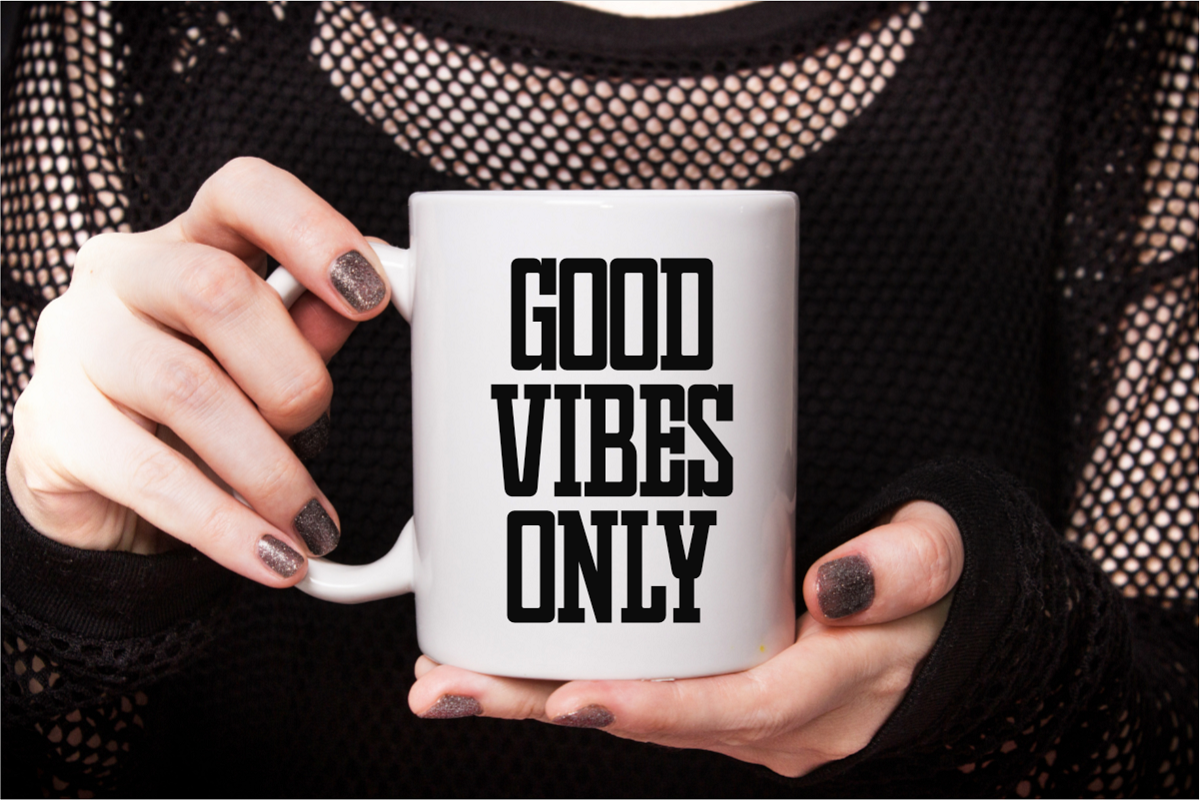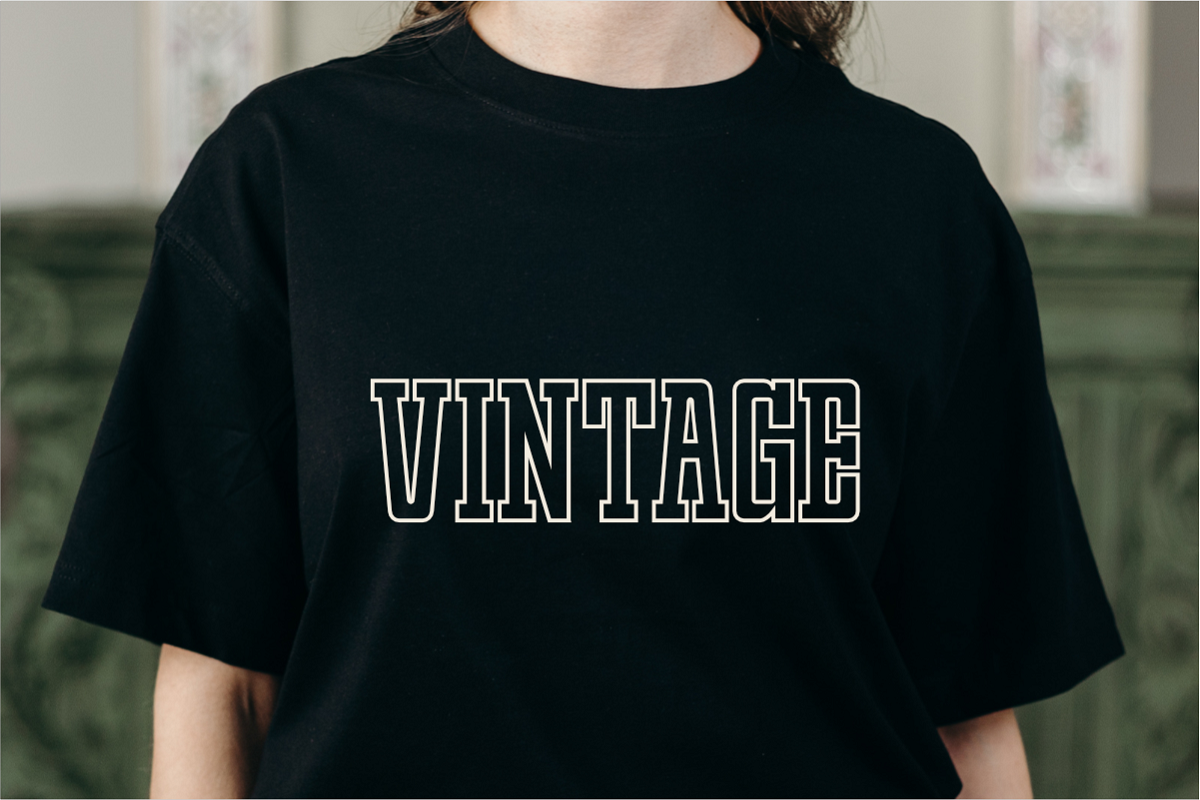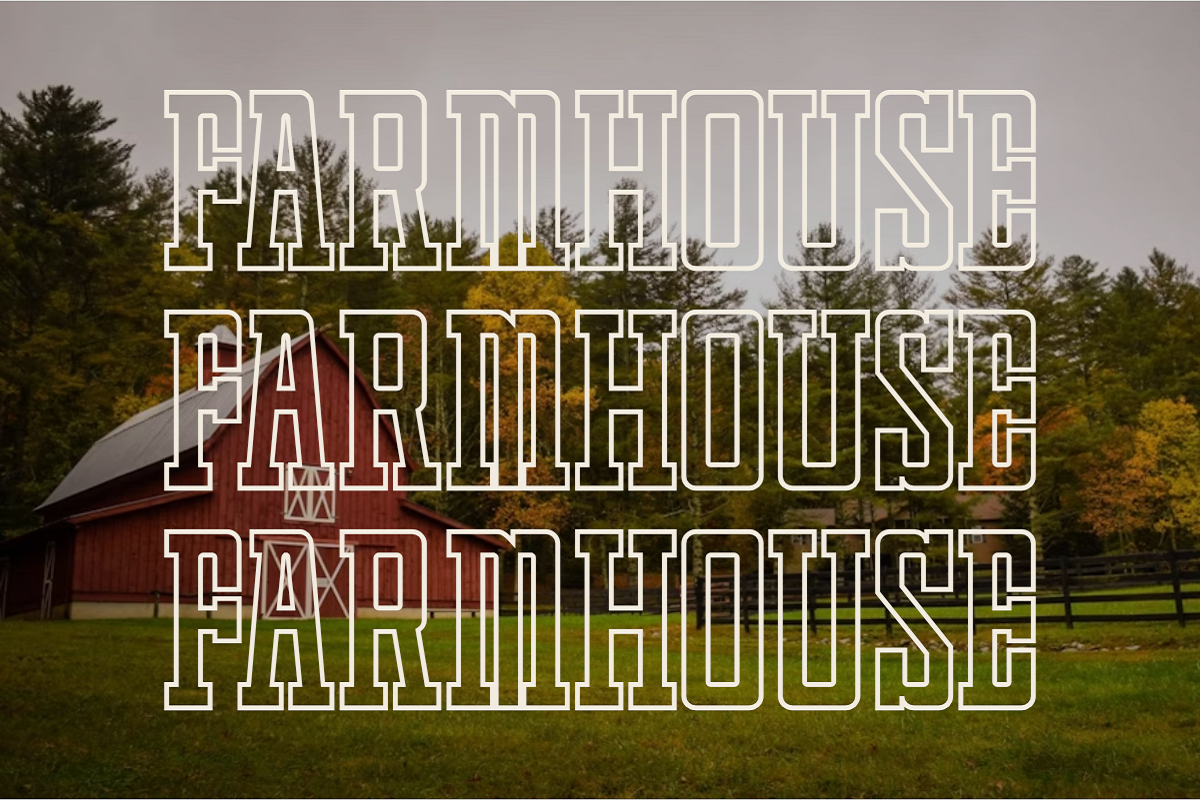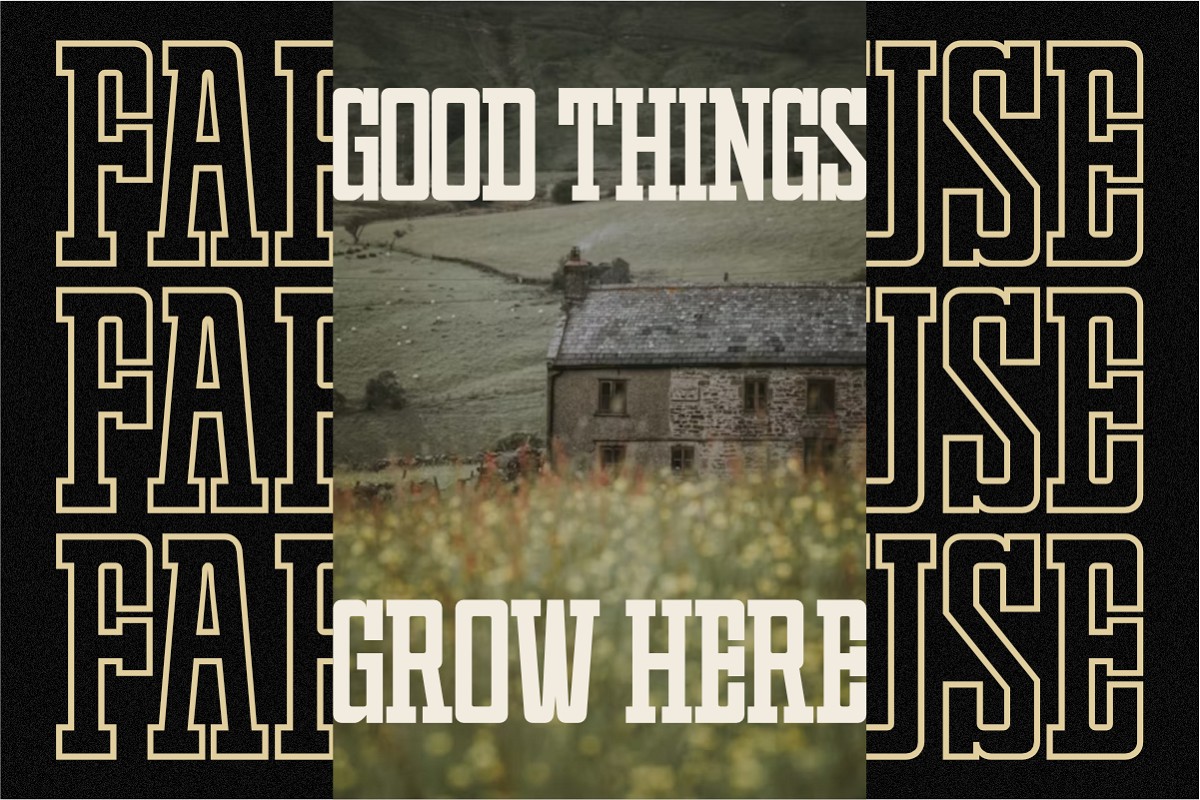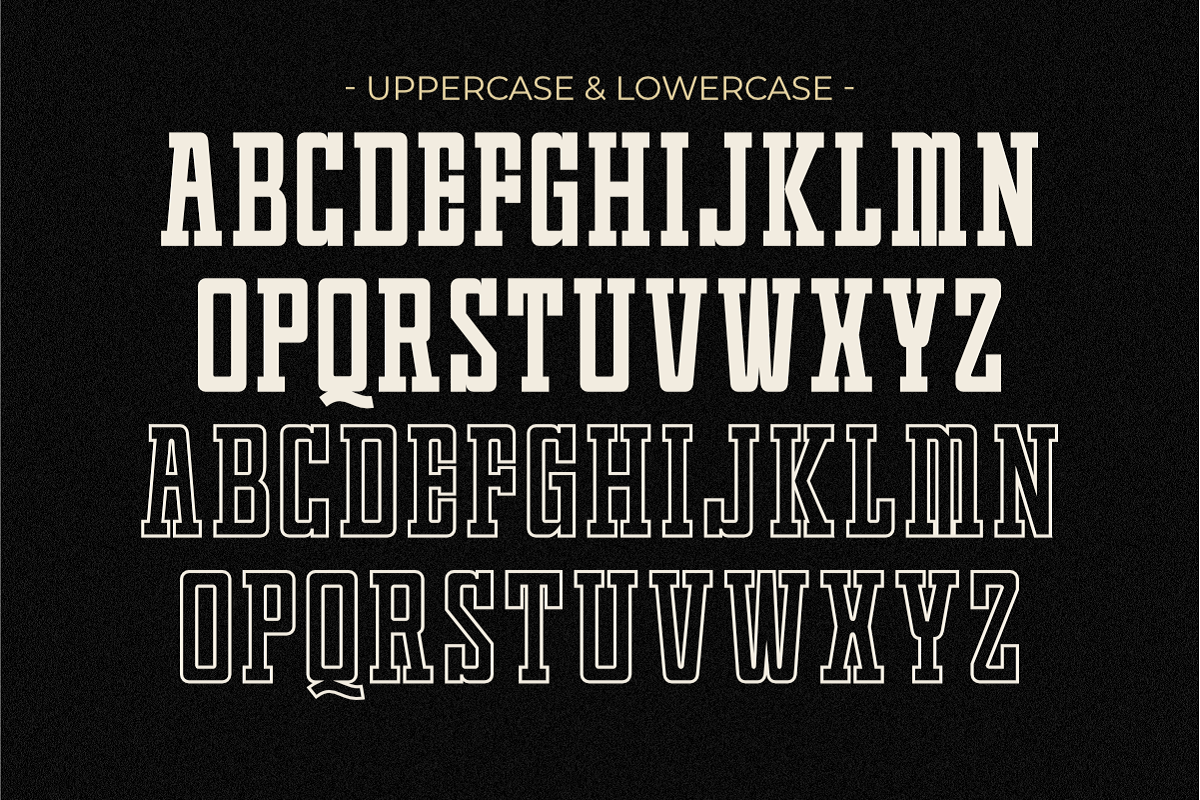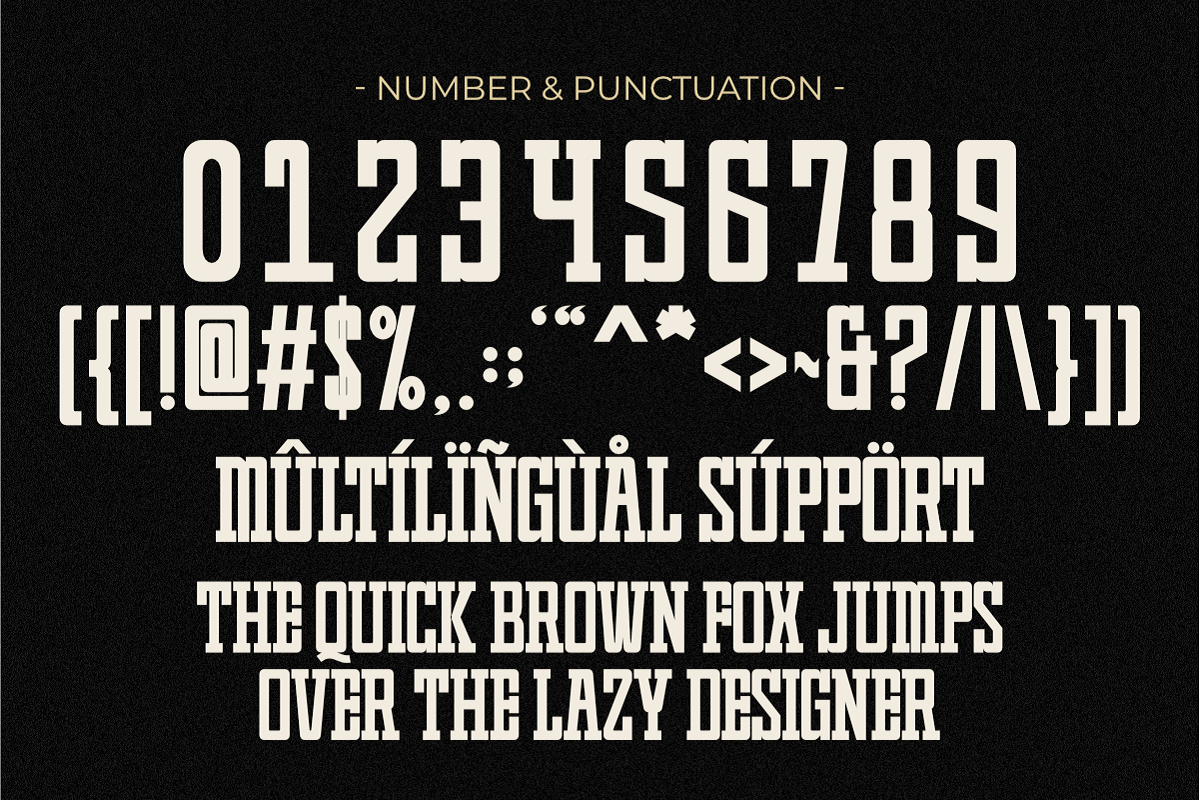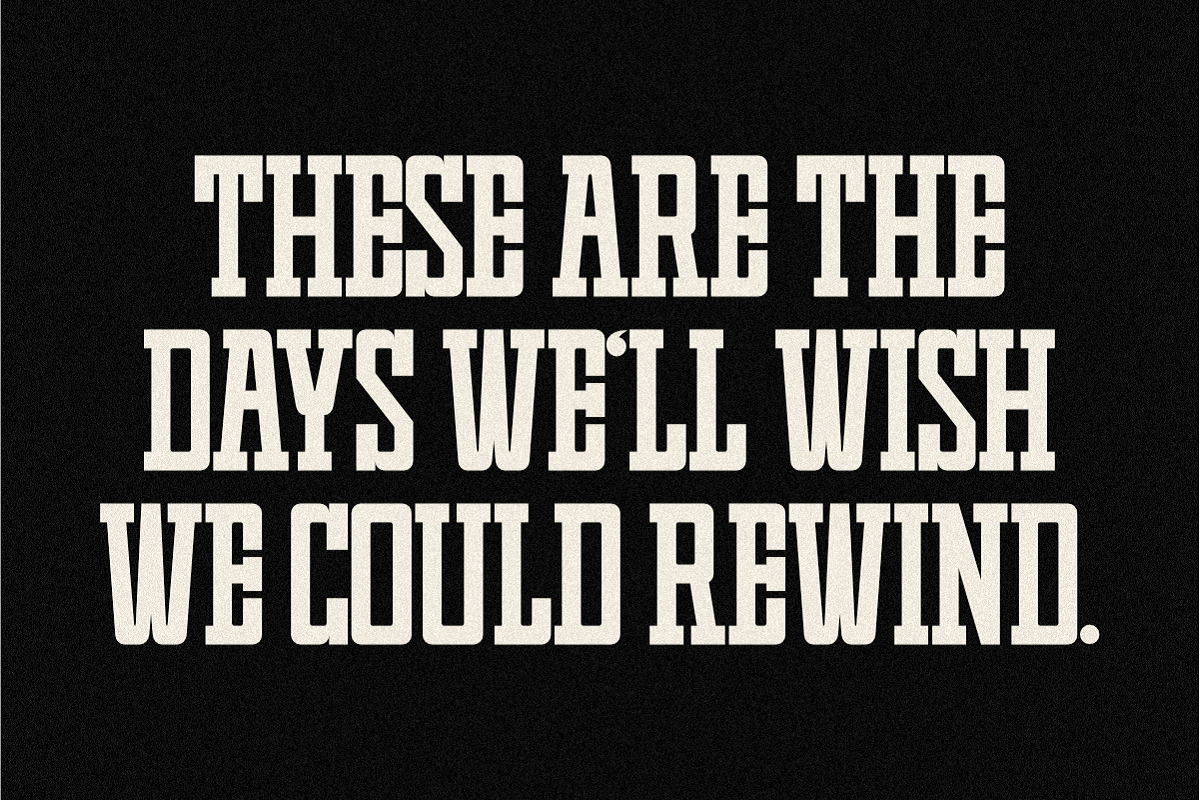
Varsity College - Vintage Slab Serif
Varsity College is a powerful, vintage slab serif font built to capture the classic, nostalgic spirit of American collegiate and athletic branding. With its bold, condensed letterforms, this typeface provides maximum impact and visibility, making it perfect for high-energy designs. The font comes complete with Regular and Outline styles, allowing you to easily layer them for an authentic, dynamic, retro athletic look. Whether you're designing team apparel, college merchandising, event posters, or vintage-inspired logos, Varsity College delivers a strong, reliable, and instantly recognizable aesthetic.